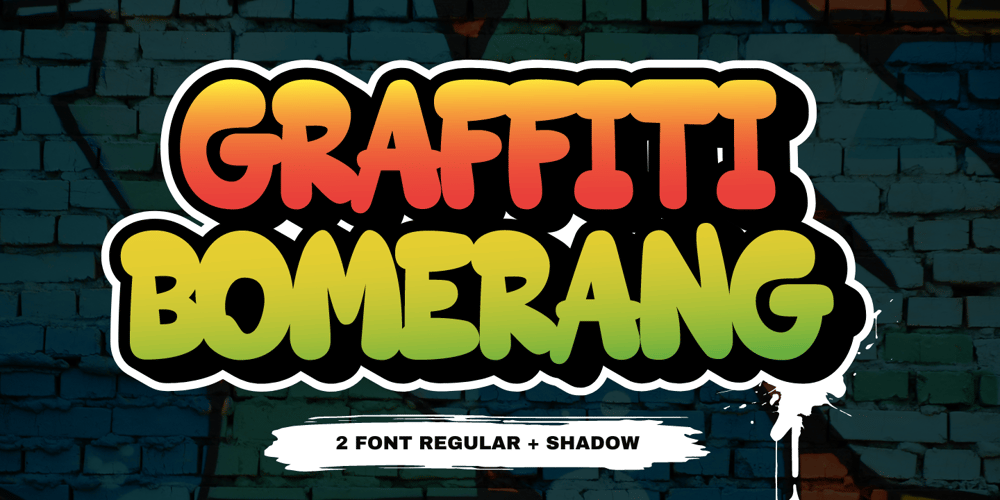
Graffiti Bomerang Font Family was designed by Sigit Dwipa and published by Nirmana Visual. Graffiti Bomerang contains 2 styles and family package options. Graffiti Bomerang is a bold display font that captures the rebellious spirit of street art. Its thick, uppercase letters feature jagged edges and unique embellishments that evoke the look of spray-painted graffiti.This font is perfect for creating eye-catching titles and headlines for urban-inspired designs, music posters, and other projects that require an edgy and daring style. The font’s bold and unapologetic personality is sure to make a statement.